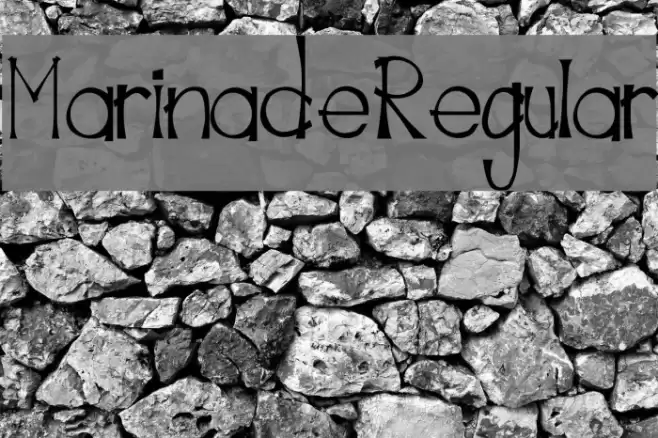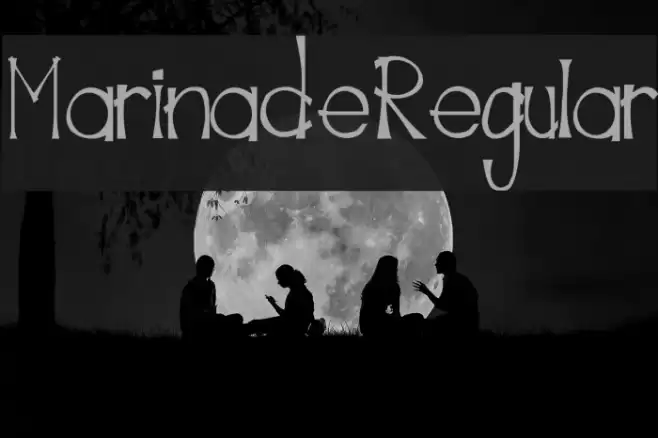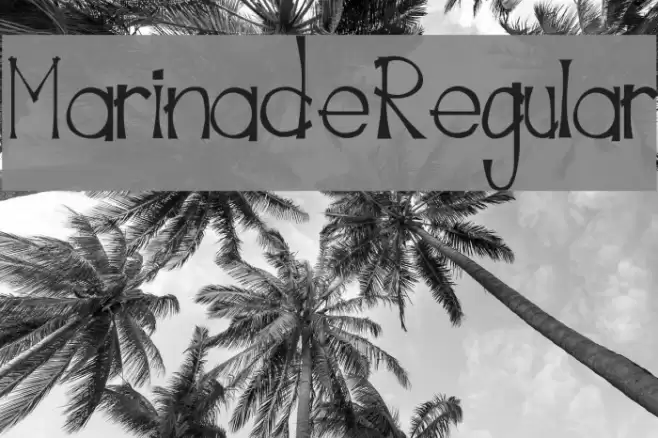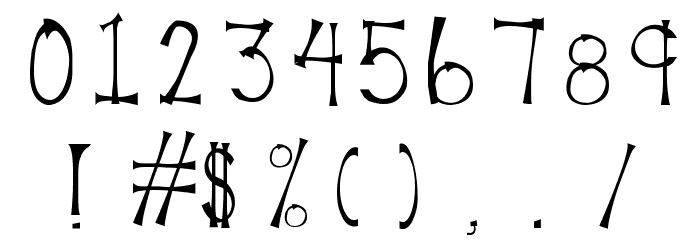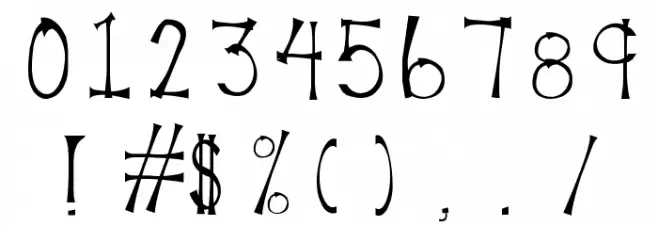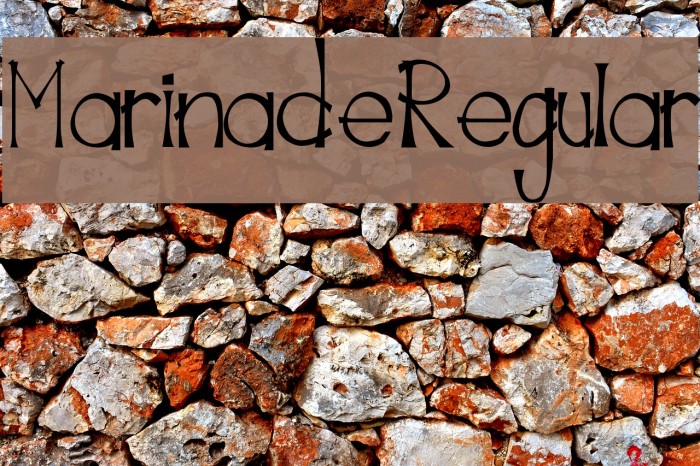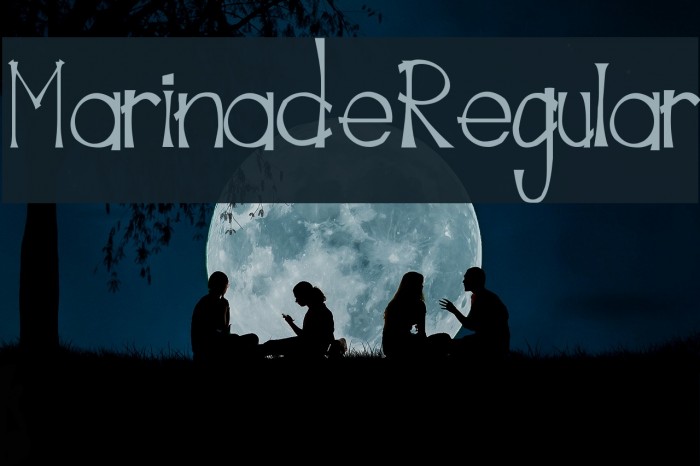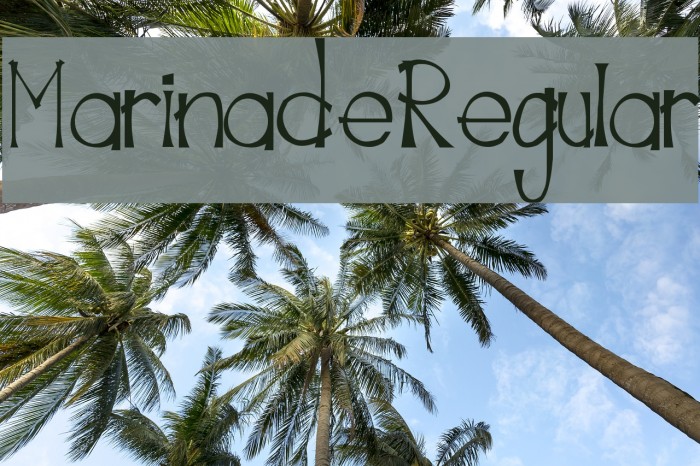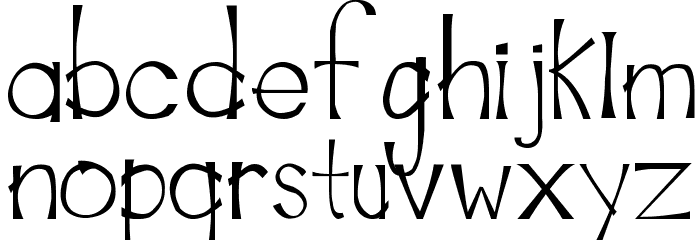
MarinadeRegular Font
MarinadeRegular Description
This font features a playful and whimsical design with a hand-drawn aesthetic. The characters have a unique, irregular form that adds a sense of movement and creativity. The uppercase letters are bold and slightly elongated, while the lowercase letters maintain a consistent style with quirky, uneven strokes. Numbers and special characters follow the same artistic theme, making the font suitable for projects that require a fun and informal touch. The overall appearance is both distinctive and engaging, perfect for capturing attention.
A playful, hand-drawn font with a whimsical and creative style from Uncategorized fonts.
- Proposed Projects: Ideal for children's books, creative posters, playful branding, and artistic invitations.
- Overall Style: Whimsical, Artistic
- Use Case: Headlines, Posters, Branding